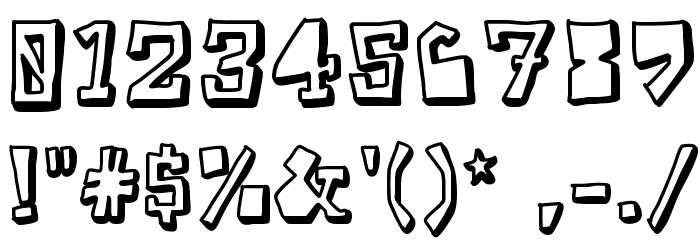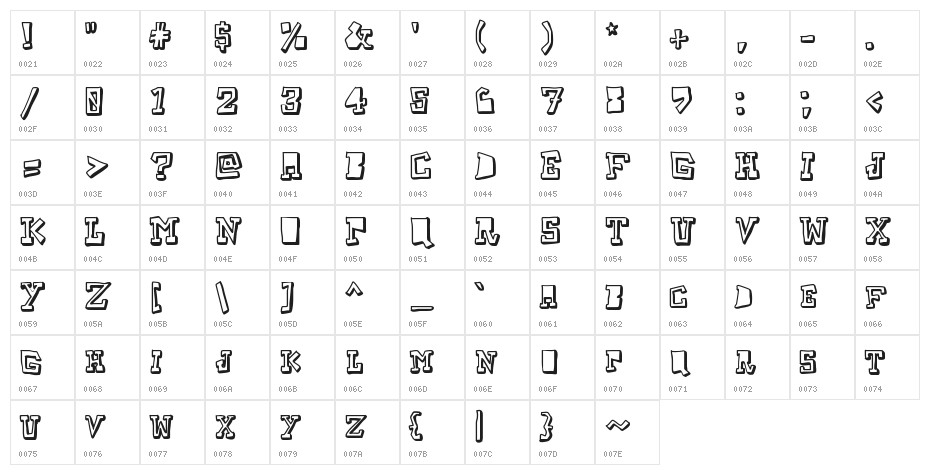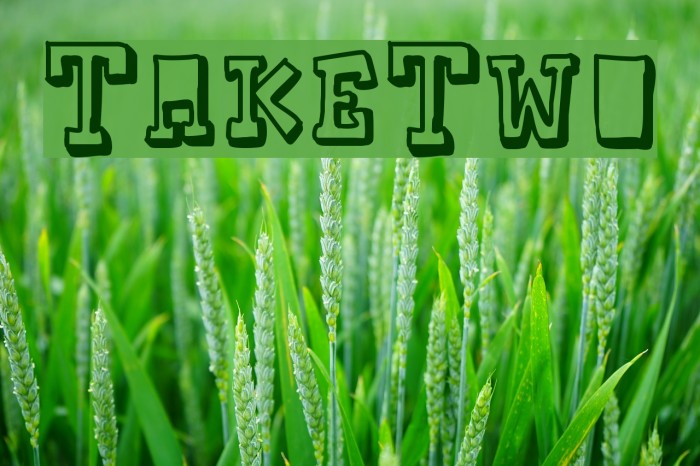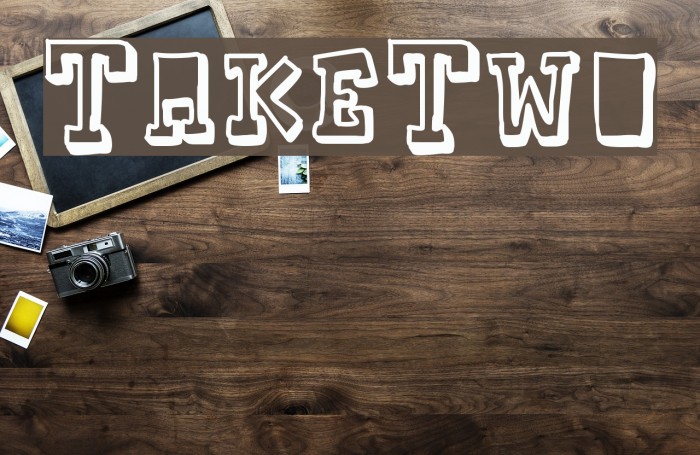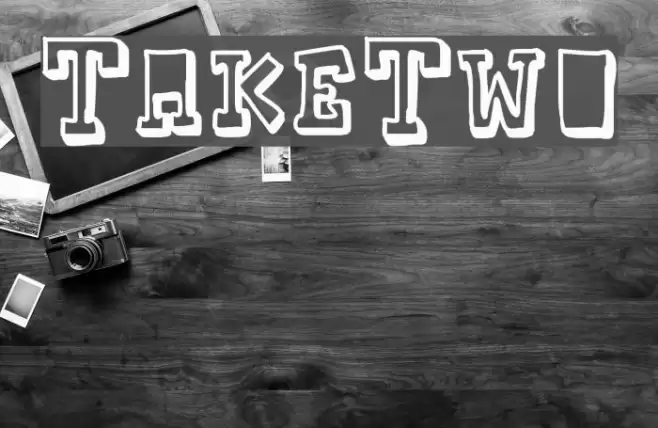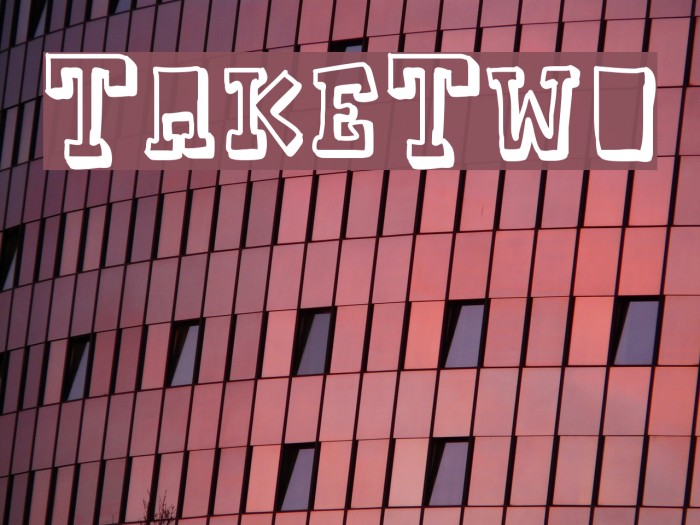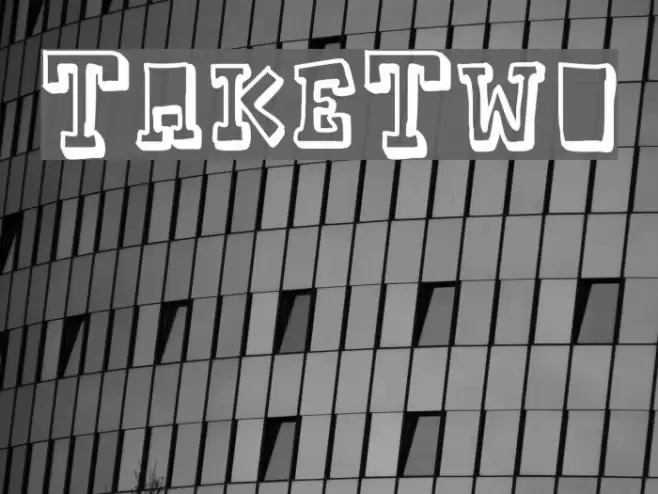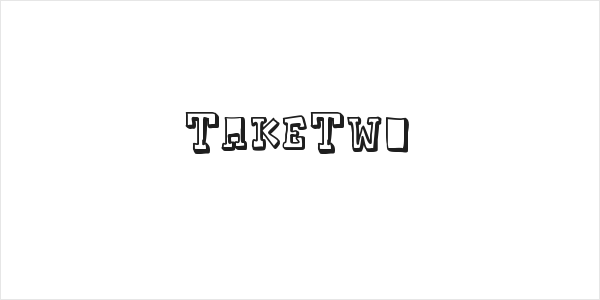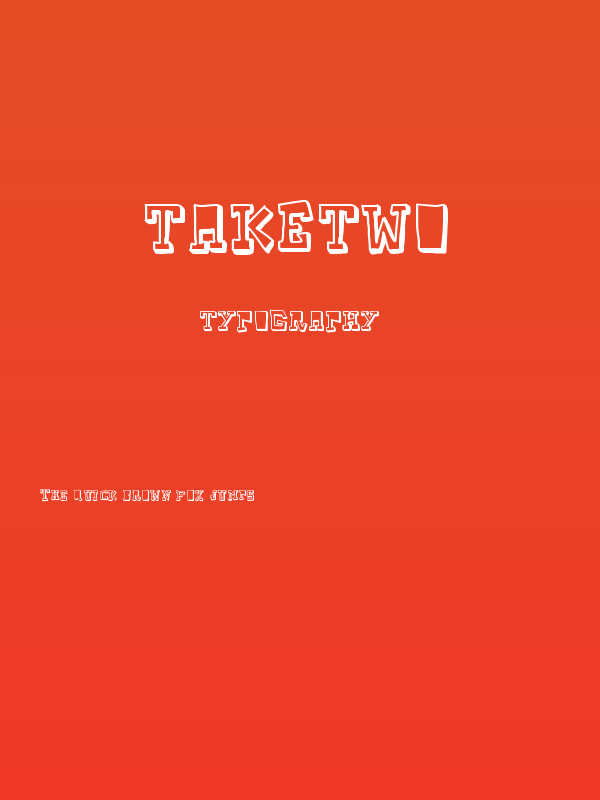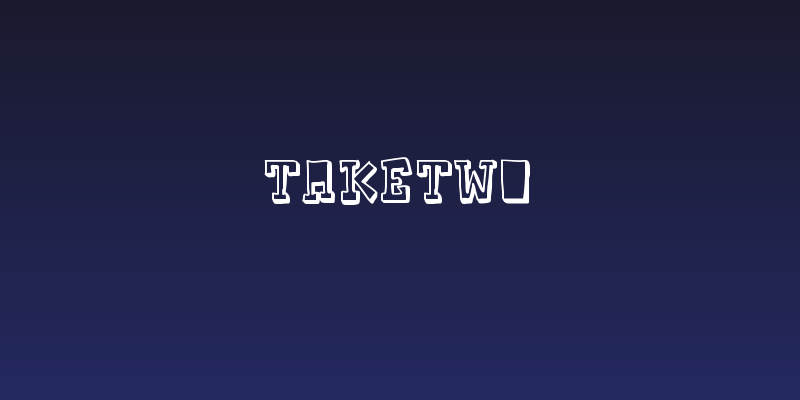
TakeTwo Font
TakeTwo Description
This font features a bold, playful design with a hand-drawn aesthetic. Each character is outlined with a thick black border, giving it a cartoonish and dynamic appearance. The letters are slightly irregular, adding to the whimsical and informal style. The uppercase and lowercase letters maintain a consistent look, with exaggerated angles and curves that create a sense of movement. Numbers and special characters follow the same design principles, ensuring a cohesive look across all elements. This font is ideal for projects that require a fun and engaging visual impact.
| Overall Style | Playful, Cartoonish, Hand-drawn |
| Proposed Projects | Perfect for children's books, comic strips, playful branding, and event posters. |